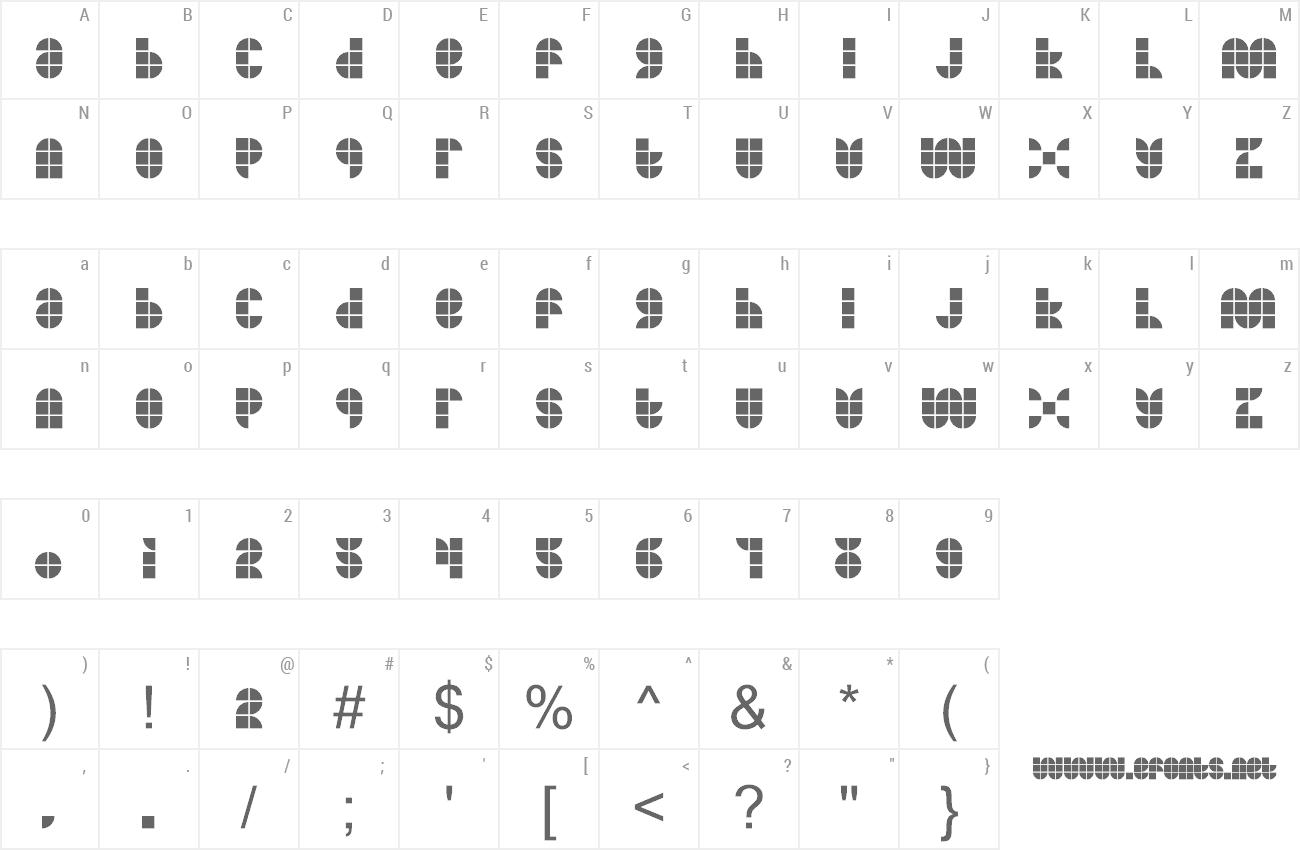
Preview and download MKF Tiler Font. Created by mediakitchen fonts in Techno Various styles with 100% Free license.
04 September 2008 Hiya!!! MKF Tiler is my neophyte effort at typography. It is a very simple typeface for very simple uses. Please use and distribute as you please (just keep this txt file together with the font file) and if you can, send me a copy of what you used MKF Tiler for at mail.mediakitchen@gmail.com. I'd be very happy to see my first baby in action. Also, being a newbie at this, I don't know if MKF Tiler is identical to other typefaces, if it turns out that it is, give me a heads up so I can check it out or maybe give credit to those who thought of it first. Thanks for downloading and enjoy MKF Tiler nerdluck MKF Tiler v.1.0 ©{nerdluck}. 2008. All Rights Reserved |